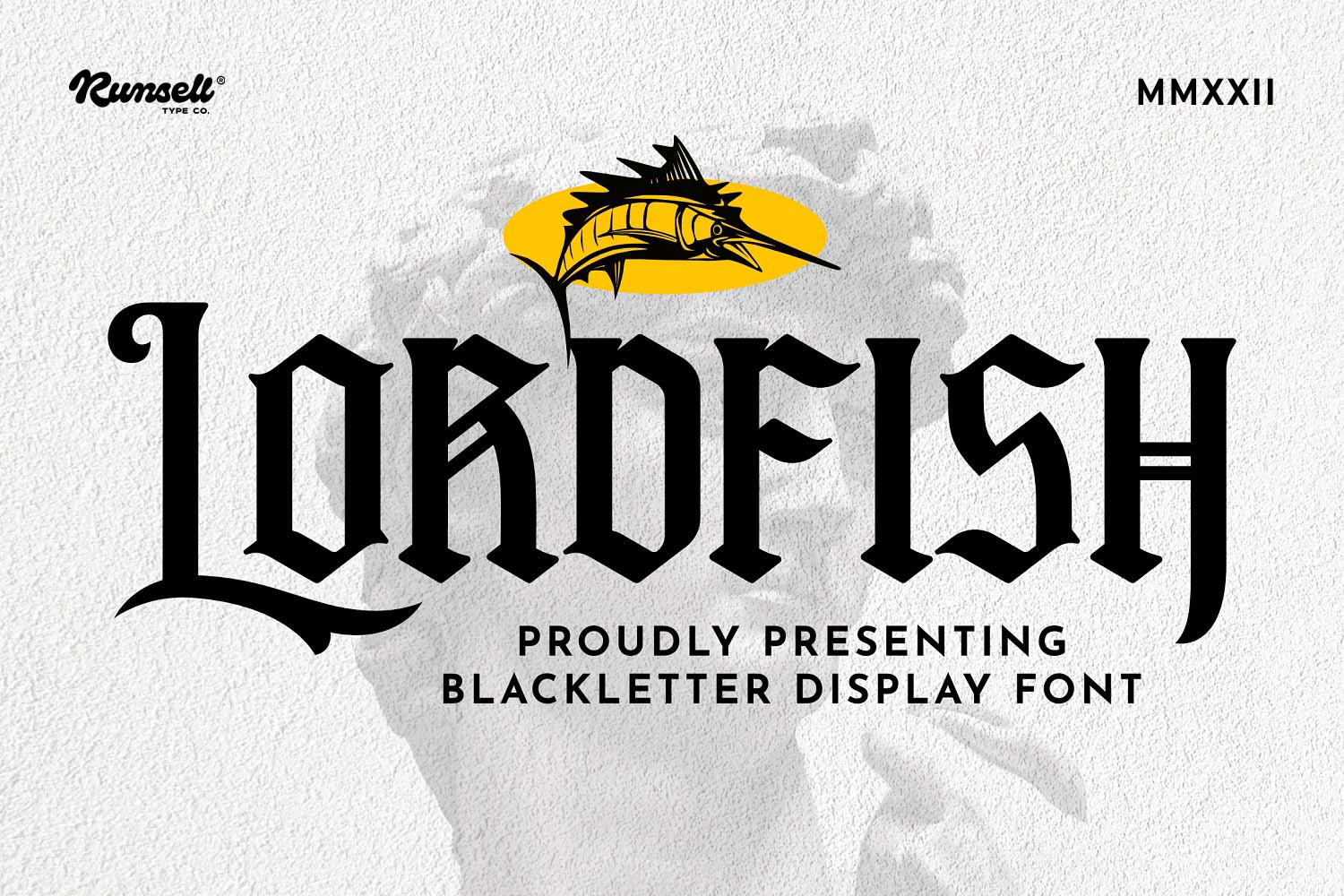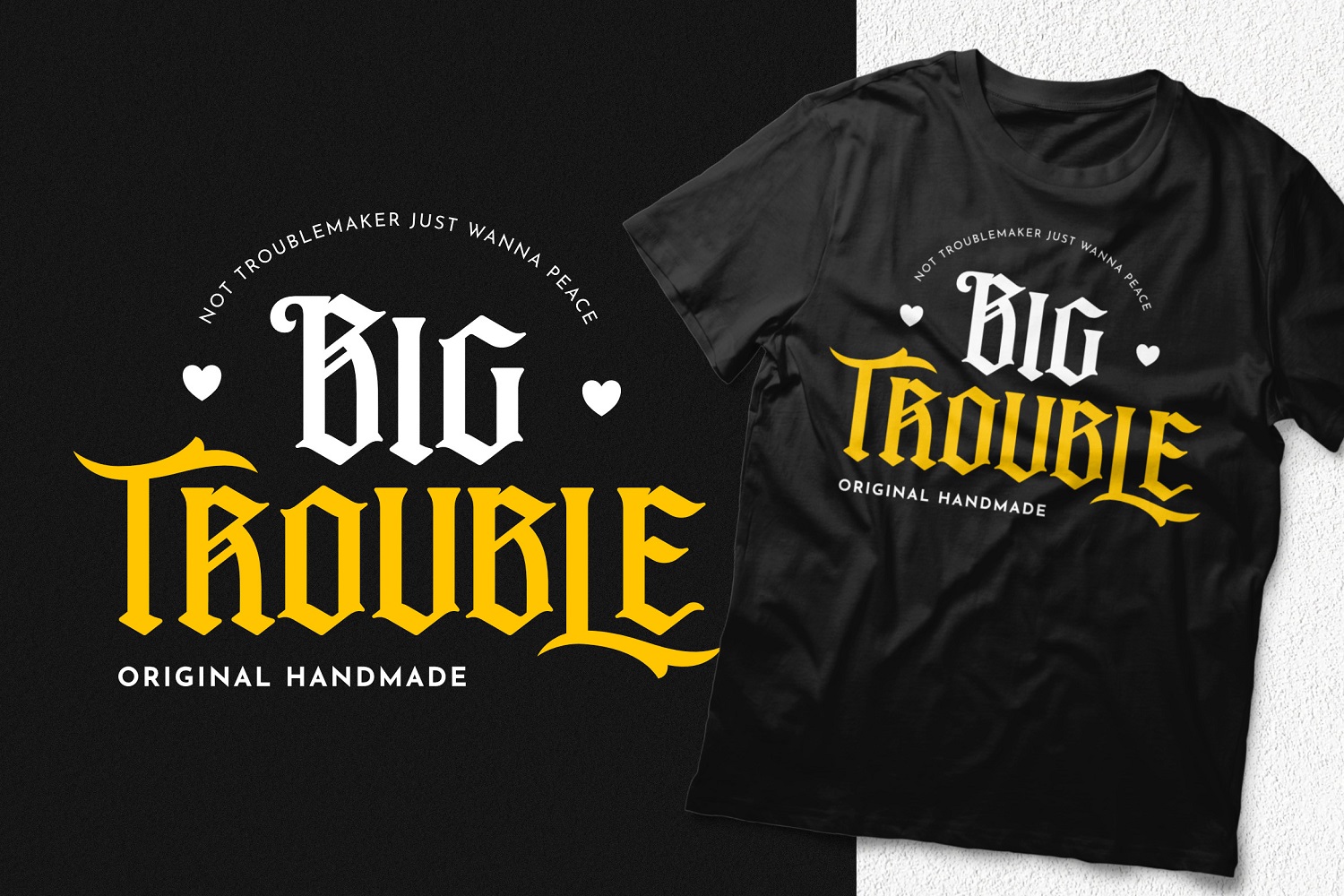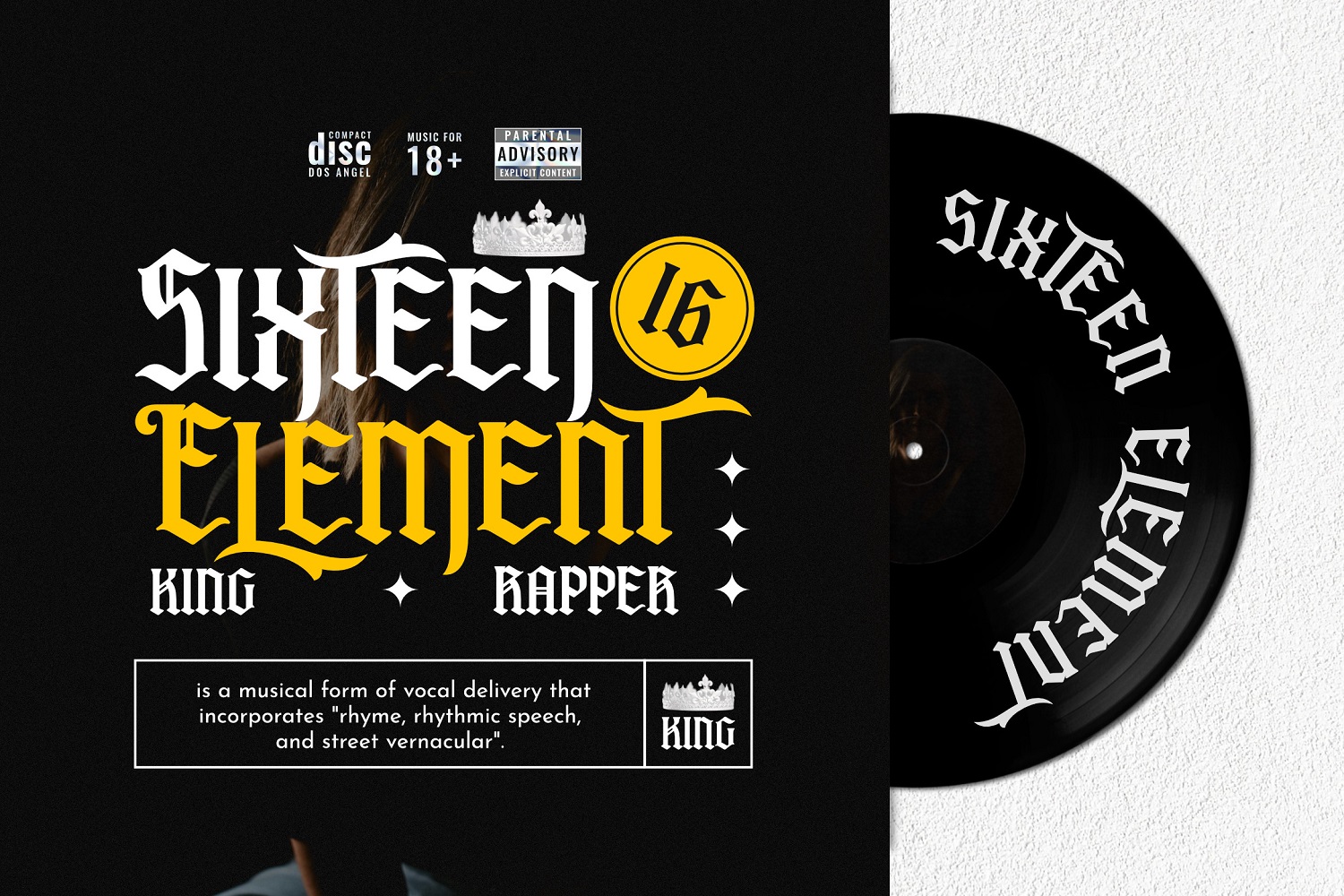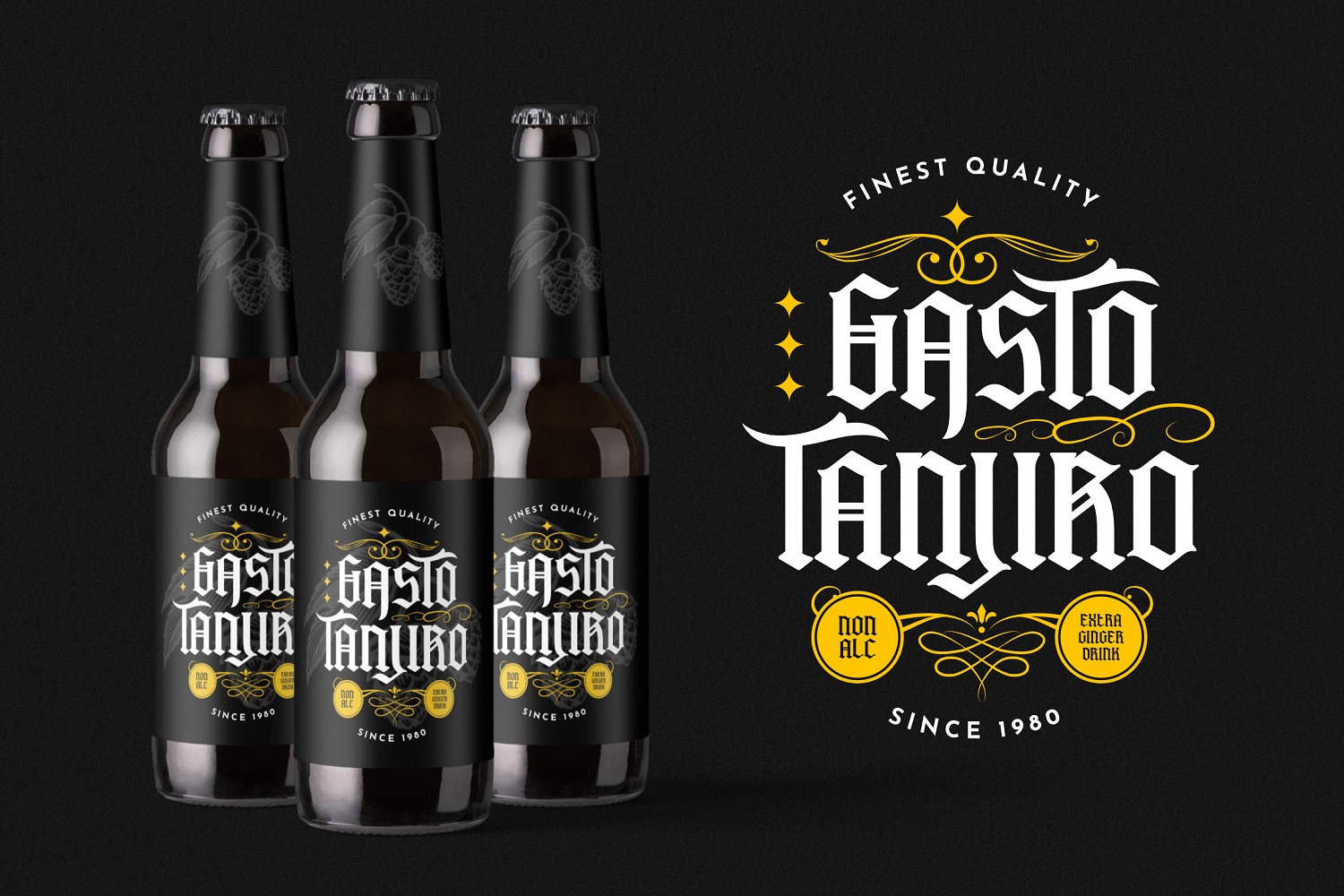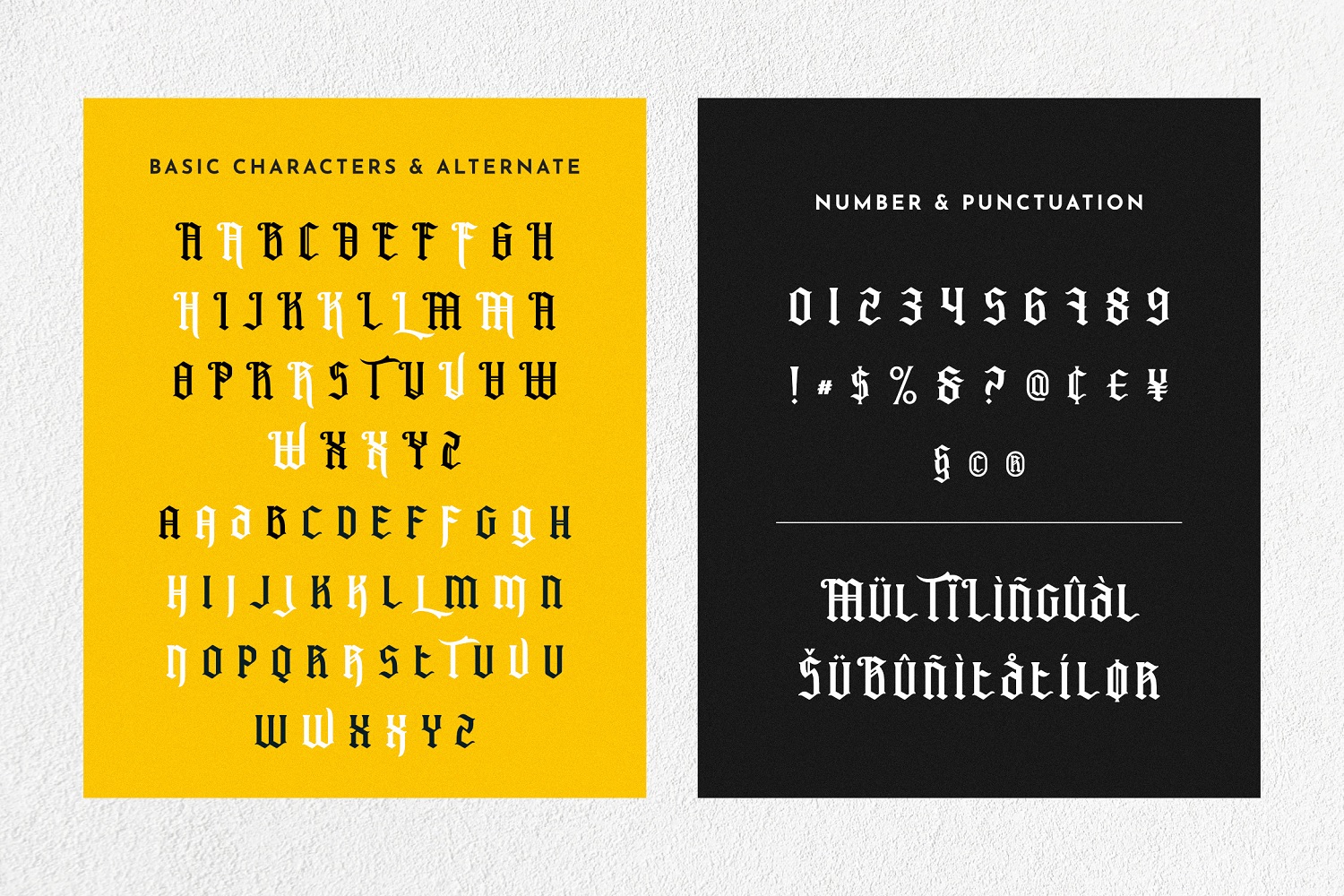
Lordfish is a striking blackletter display font that fuses classic gothic aesthetics with modern versatility. Inspired by vintage calligraphy and old-school tattoo culture, this font features sharp, angular letterforms, dramatic serifs, and dynamic alternate characters that elevate your designs with a bold and rebellious edge. It’s perfect for logos, merchandise, posters, and music or beverage branding that demand attention and attitude.
With uppercase and lowercase characters, alternate styles, multilingual support, and a full set of punctuation and numerals, Lordfish is built for creative expression. Whether you’re crafting a fierce apparel design, album cover, or artisanal label, this font will deliver impact with every letter. Let Lordfish be the voice of your next statement piece.
Lordfish